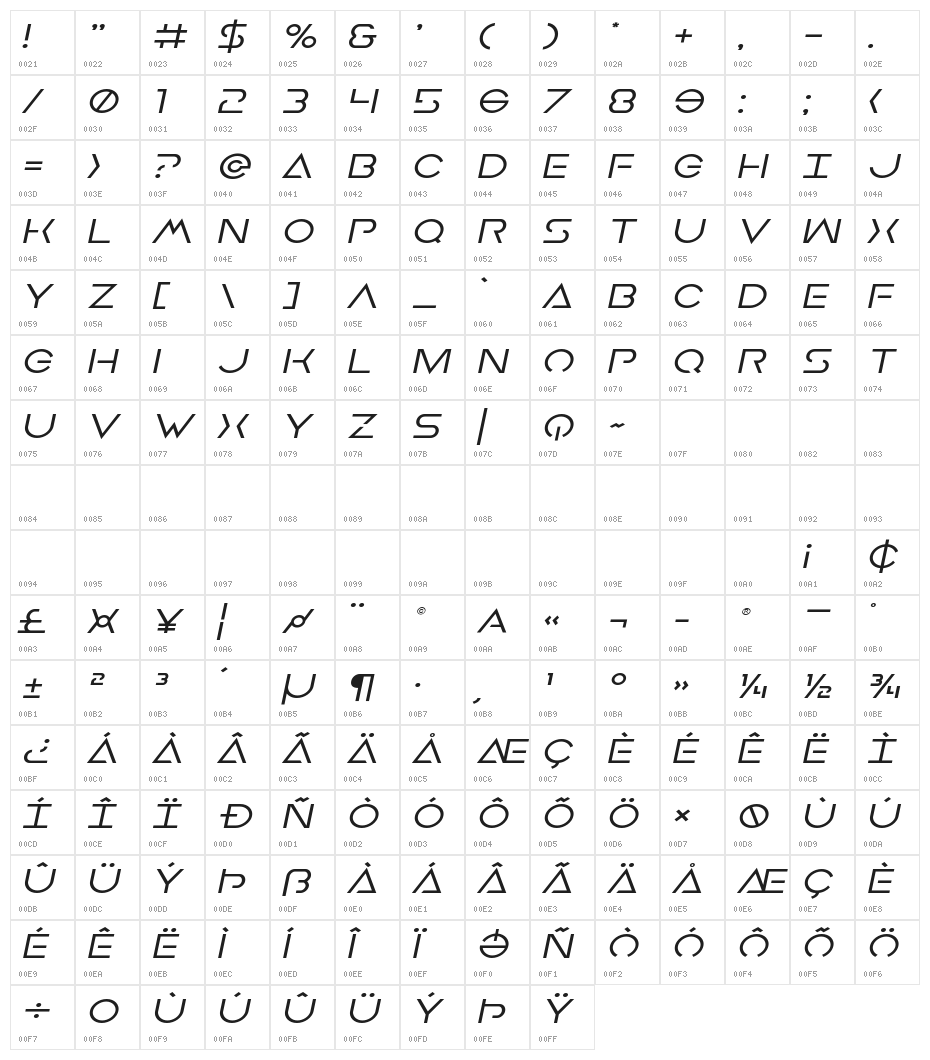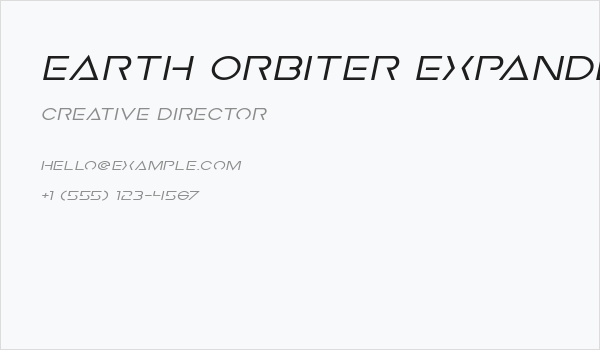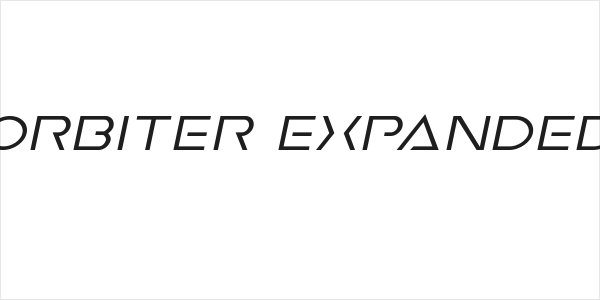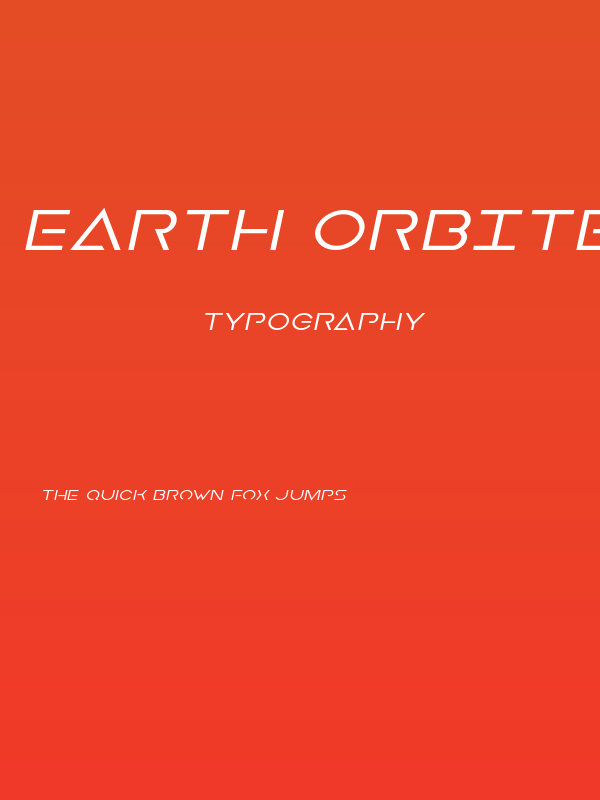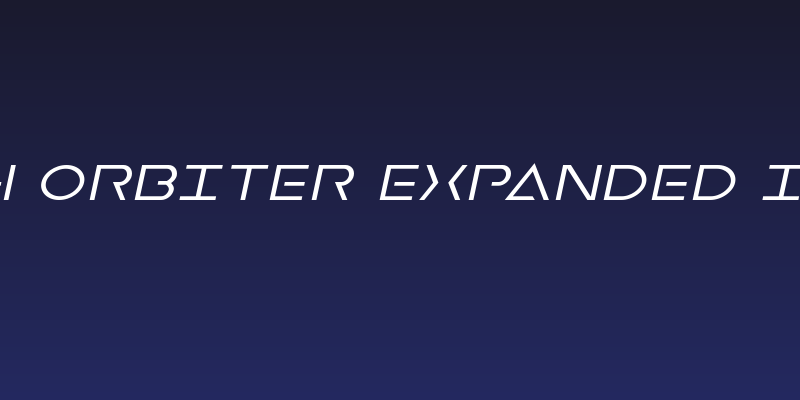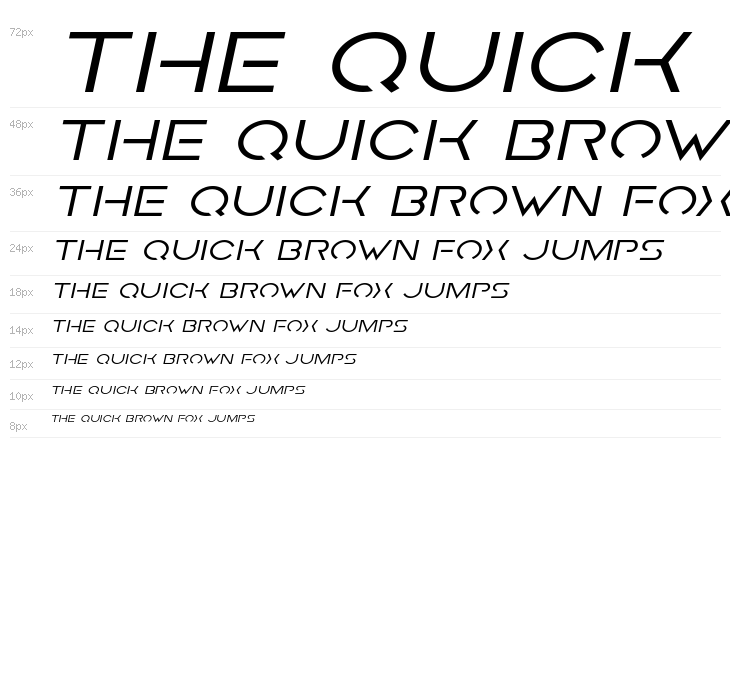
Earth Orbiter Expanded Italic Font
Earth Orbiter Expanded Italic Description
This font features a futuristic and sleek design, characterized by its italicized and expanded letterforms. The angular and geometric shapes give it a modern and dynamic appearance, suitable for conveying a sense of motion and technology. The characters are evenly spaced, with a slight slant that adds to the sense of forward movement. The numerals and special characters maintain the same stylistic approach, ensuring consistency across all elements. The overall aesthetic is clean and minimalistic, making it versatile for various design applications.
| Use Case | Headlines, Logos, Digital Interfaces |
| Proposed Projects | Ideal for technology branding, sci-fi themed projects, modern advertising, and digital interfaces. |